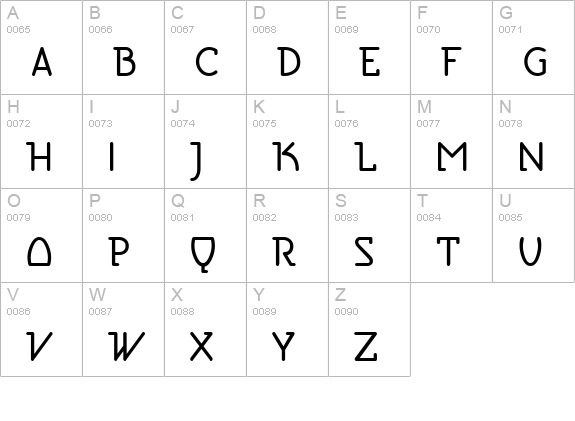
Sanitary Regular is the standard, neutral variant in the Sanitary typeface family \xE2\x80\x94 well suited to general body text, paragraphs, and standard typographic work.
Sanitary Regular font is a versatile and modern typeface that exudes simplicity and cleanliness. Its sleek lines and sharp edges make it perfect for various design projects, from branding to editorial design. The font strikes a balance between professionalism and approachability, making it suitable for a wide range of applications. What sets Sanitary Regular font apart is its availability for free download at FontsMarket.com. This means that you can easily access this high-quality font without any cost, making it a valuable addition to your design toolkit. Whether you're working on a website, logo, or print materials, Sanitary Regular font will bring a touch of sophistication to your projects. Don't miss out on this opportunity to elevate your designs with a free and stylish font like Sanitary Regular.